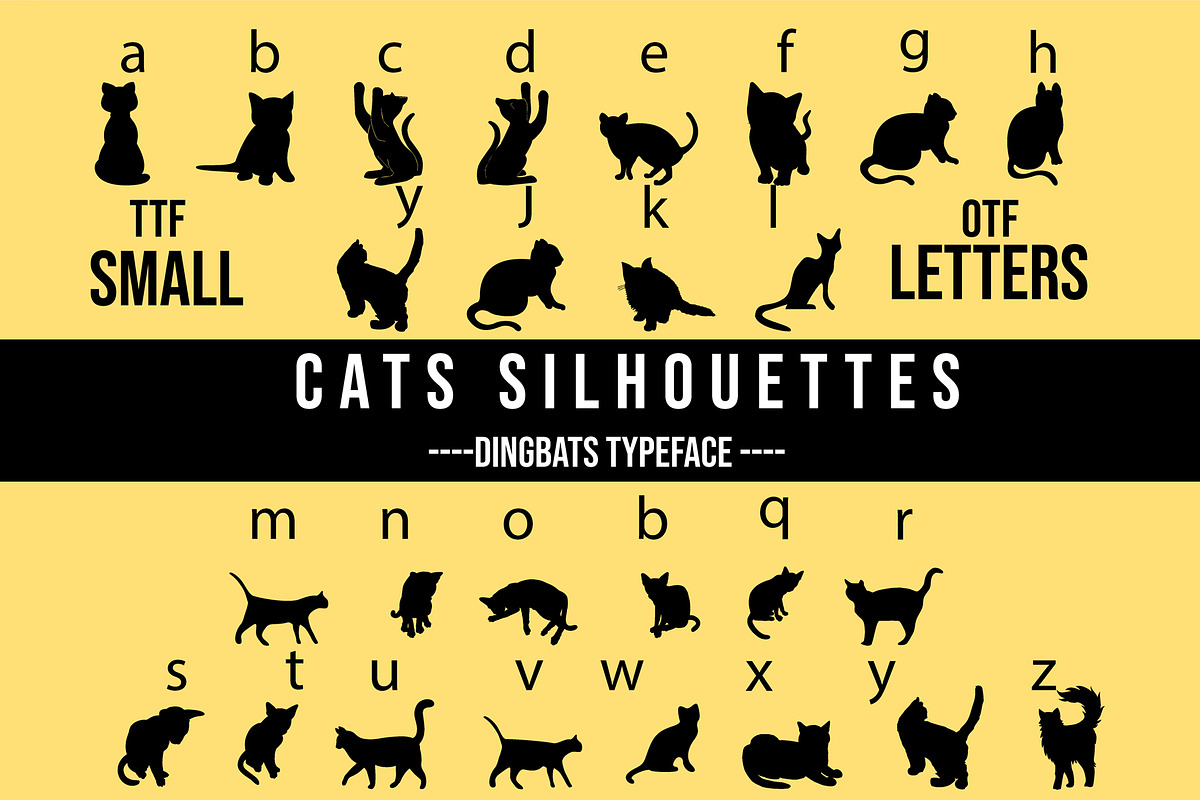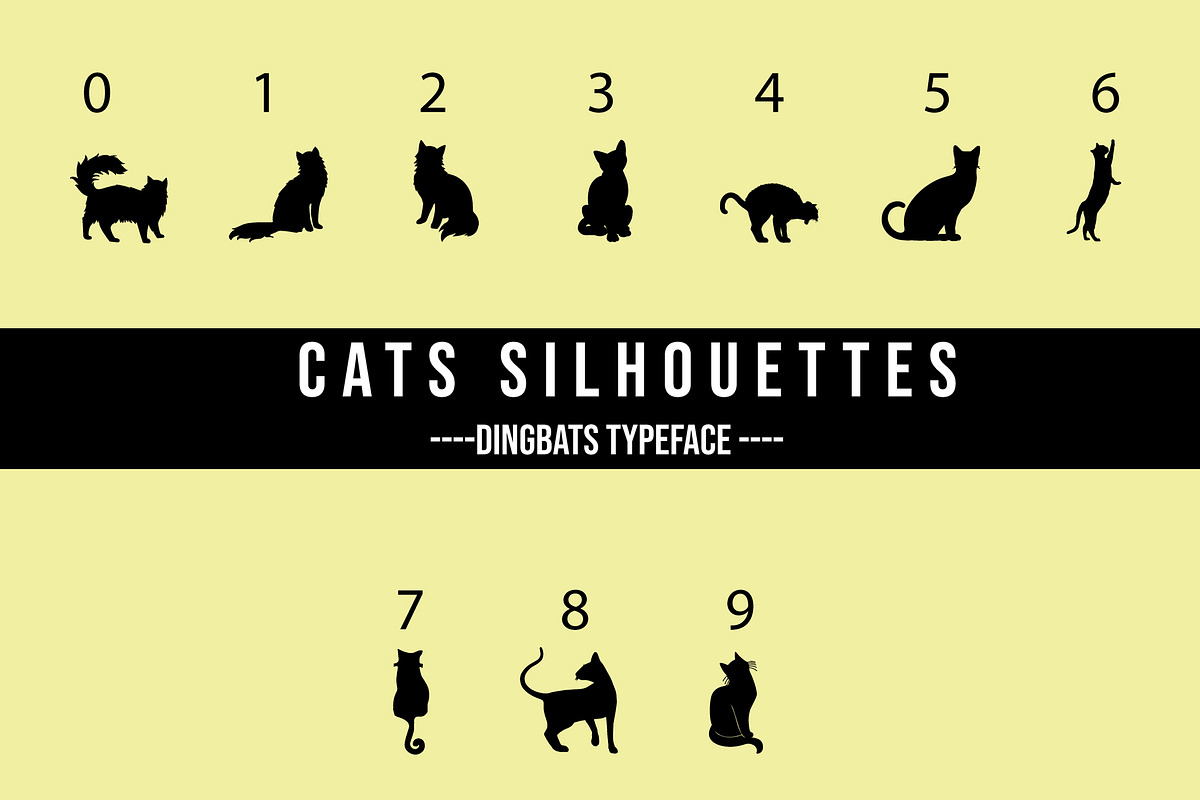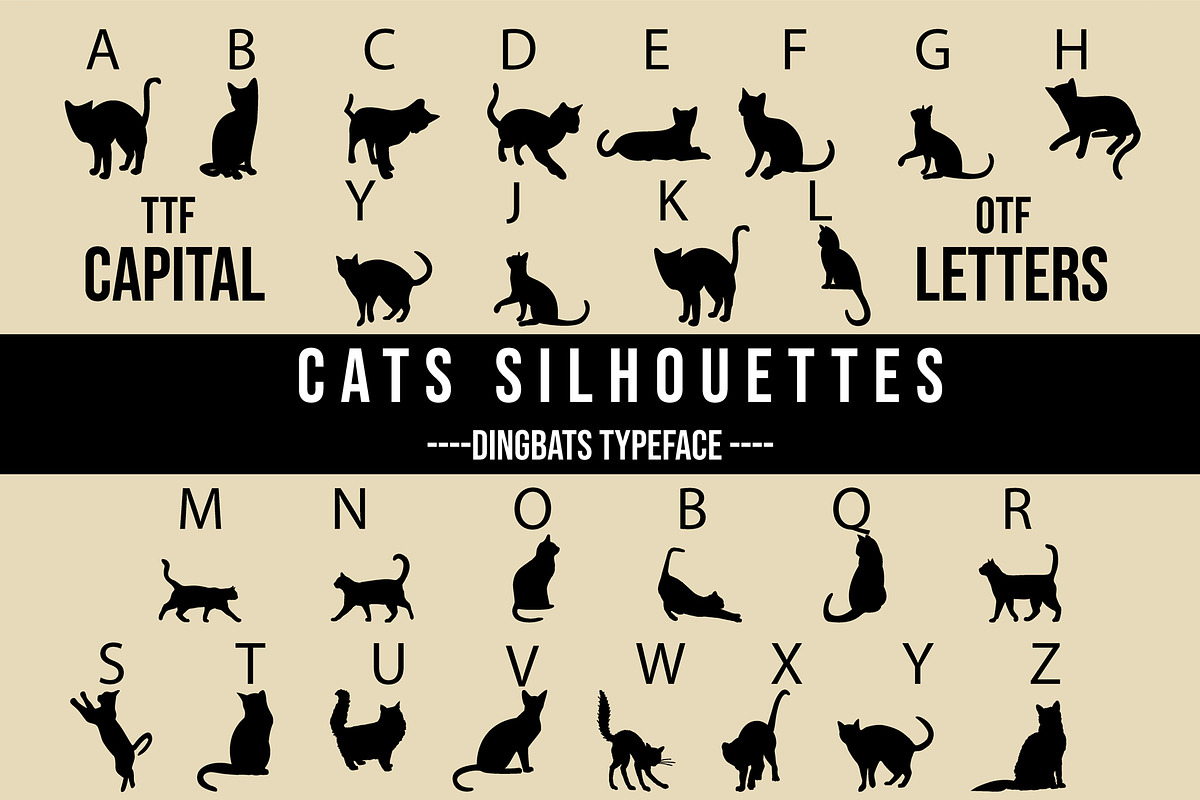
Cats Silhouettes Dingbats Font
Cats Silhouettes is a cool and unique dingbats font. Whether you’re using it for crafting, digital designing, presentations or greeting cards making, it’s perfect!